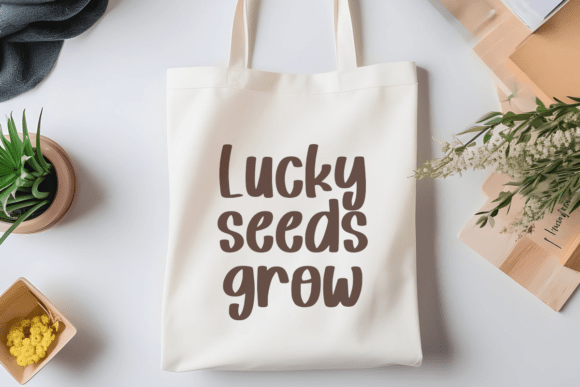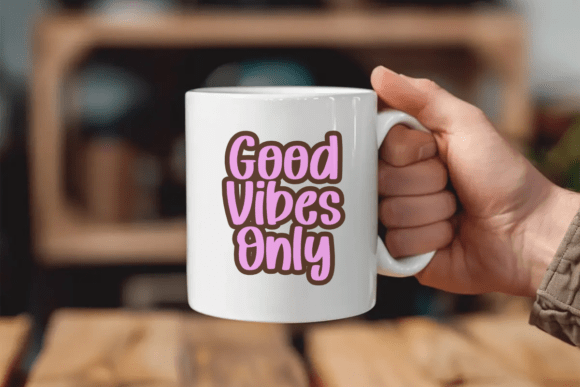
Introduction to Lucky Farmer Font
As a designer, have you ever stumbled upon that perfect font that instantly sparks a creative idea? For me, it was the moment I discovered the Lucky Farmer Font – a delightful, handwritten font that radiates warmth and charm. Its playful strokes and soft curves are a match made in heaven for kids’ designs, branding, and crafts that need a lighthearted, friendly vibe.
With the Lucky Farmer Font, designers can breathe new life into their creative projects. Its high-quality design makes it a valuable resource for any project that requires a touch of whimsy and personality. Whether you’re working on a farm-themed project or just want to add a smile to your text, this font is the lucky pick. And the best part? It’s available for a free download, making it an excellent addition to any design library.
Key Features of Lucky Farmer Font
- Designed with a unique and playful aesthetic, making it perfect for adding a touch of whimsy to creative projects.
Honest Review: Lucky Farmer Font
I recently came across the Lucky Farmer Font, a charming and whimsical design resource that’s perfect for creative projects. At first glance, I was drawn to its high-quality aesthetic and versatility. The font’s rustic charm is sure to add a touch of warmth to any design.
- ✨ The font’s unique character set is ideal for creating a cohesive look in branding, signage, and editorial design.
- ⚠️ Limited font sizes and styles may make it less suitable for complex or large-scale designs.
- ⚠️ The font’s whimsical nature may not be suitable for formal or corporate projects.
Overall, the Lucky Farmer Font is a great addition to any design library, offering a high-quality and unique resource for creative projects. While it may have some limitations, its versatility and charm make it a valuable asset for designers looking to add a touch of personality to their work.
The Lucky Farmer Font is well-suited for a variety of creative projects, including greeting cards, social media graphics, and business logos. Its unique design and transparent background make it an ideal choice for projects that require a high level of visual interest.